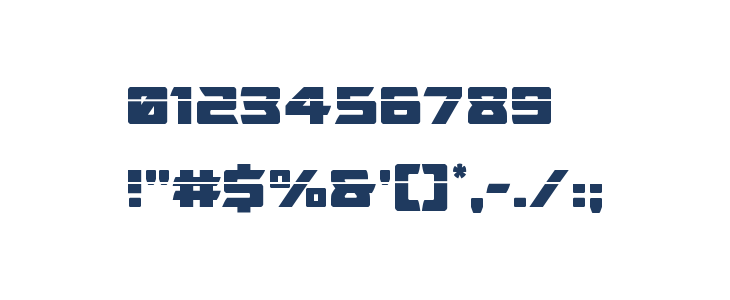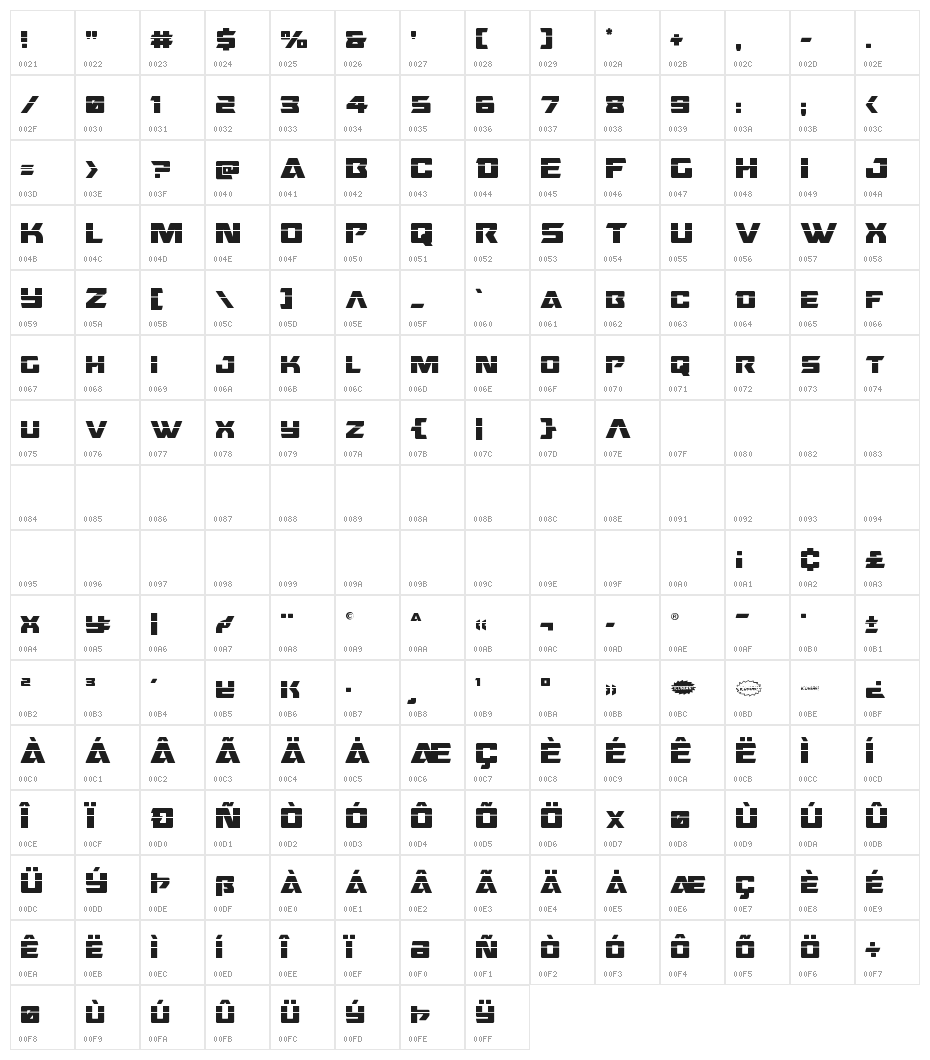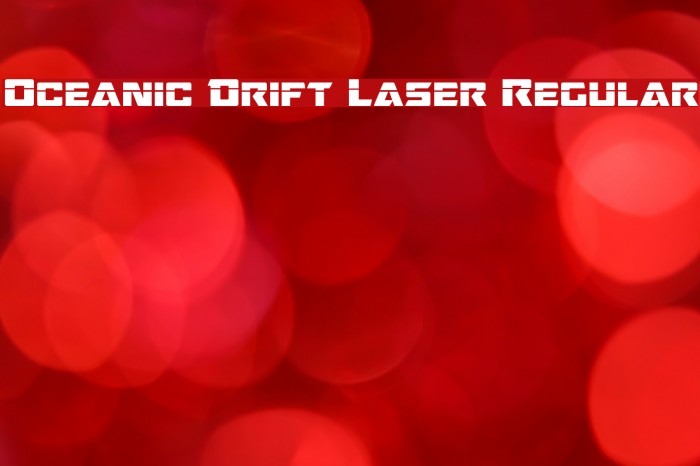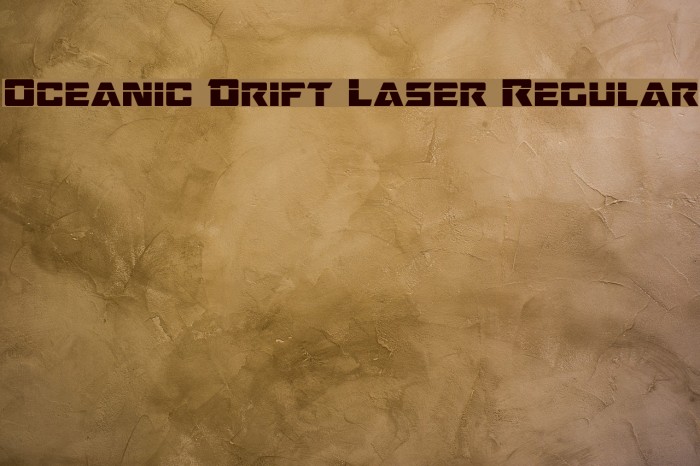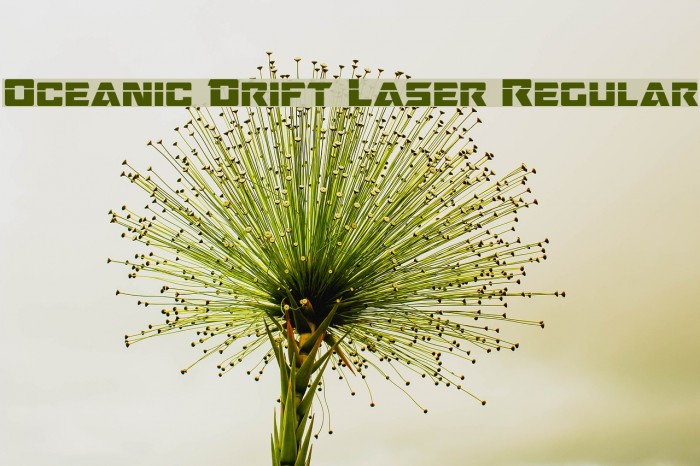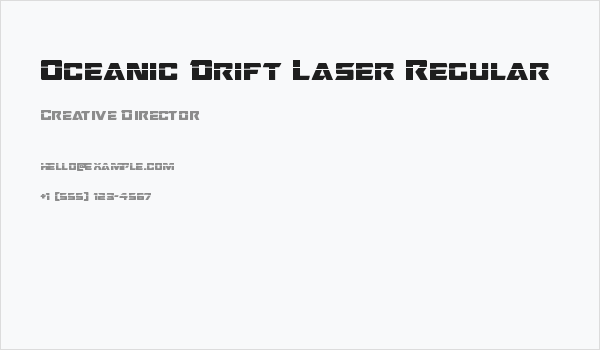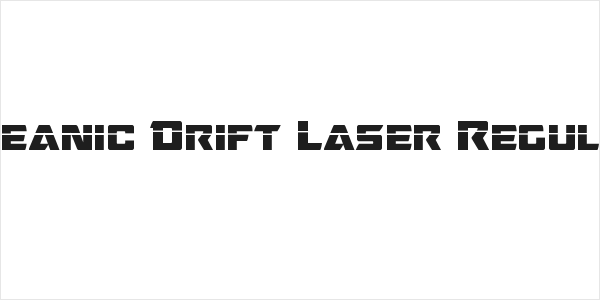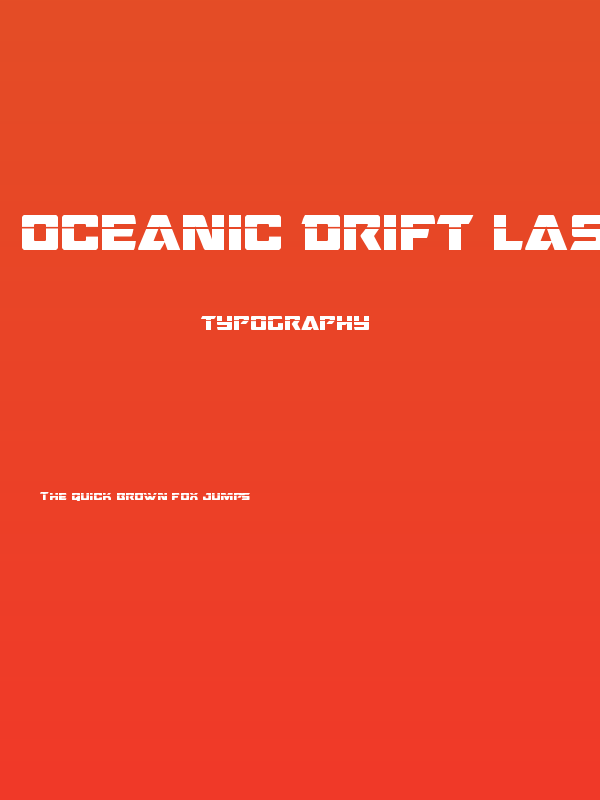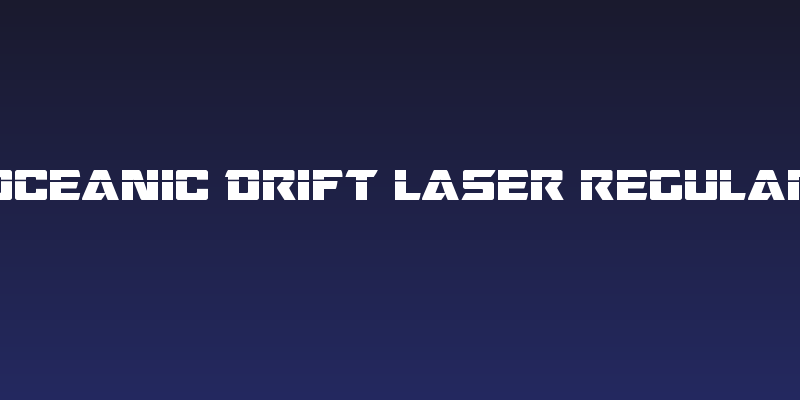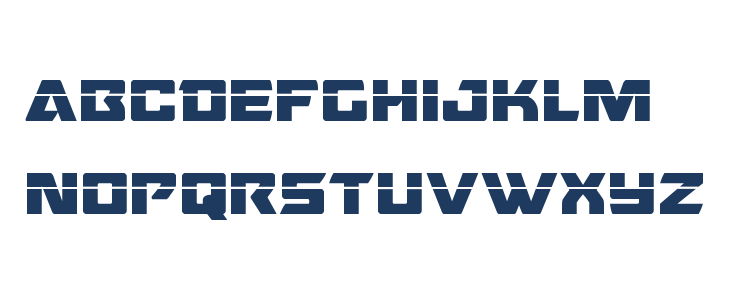
Oceanic Drift Laser Regular Font
Oceanic Drift Laser Regular Description
This font features a bold and futuristic design with a strong geometric structure. The characters are blocky and angular, giving a sense of strength and modernity. The uppercase and lowercase letters are consistent in style, with sharp edges and a uniform thickness throughout. The numbers and special characters maintain the same bold aesthetic, ensuring a cohesive look across all text. This font's unique style makes it stand out, ideal for projects that require a modern and impactful appearance.